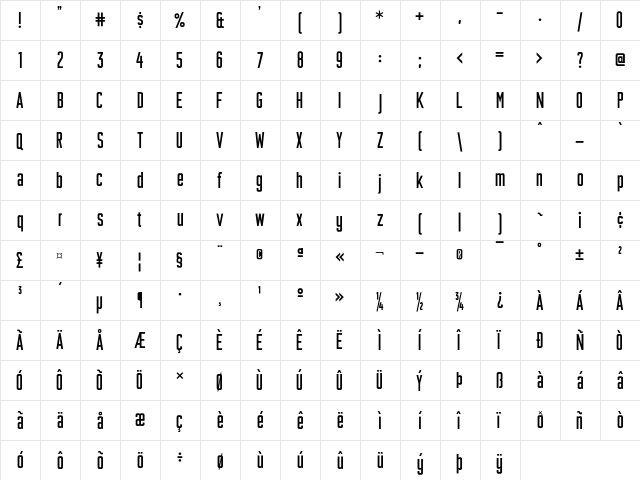
Plakative Grotesk Medium
Design Context for Plakative Grotesk Typeface
Plakative Grotesk has the quiet confidence of well-executed sans-serif typography: versatile, unobtrusive, and dependable at any size.
Font Pairing: Works well alongside a characterful serif or display font that can carry the expressive load while Plakative Grotesk handles the functional copy.
Pro Tip: Pair Plakative Grotesk with a display or serif font for headlines — its neutral character makes it an excellent supporting player in complex typographic systems.